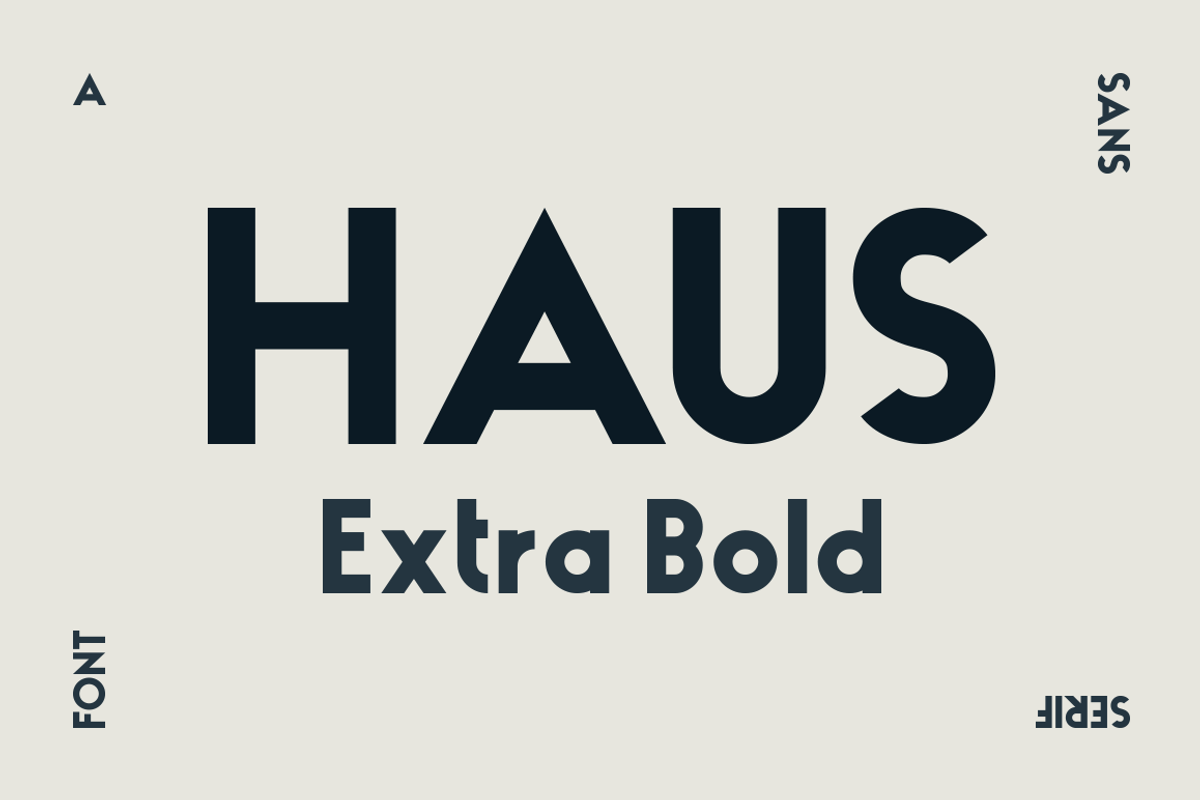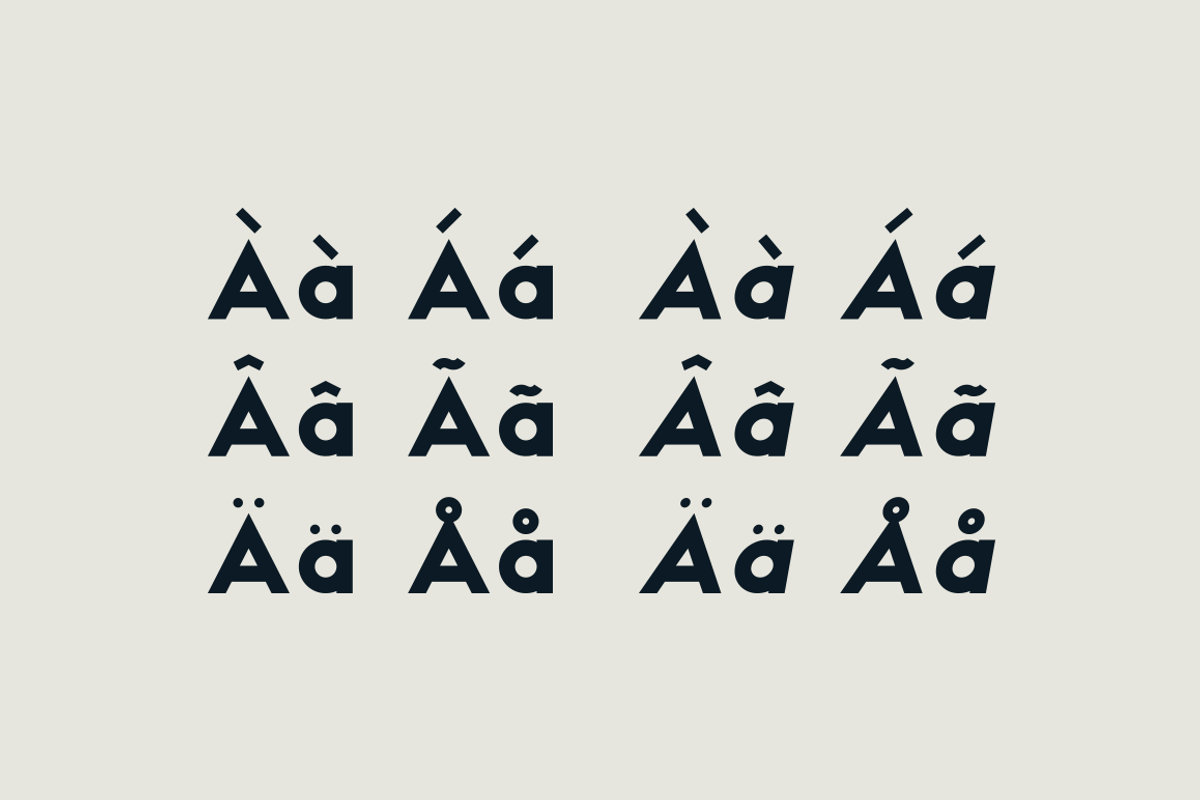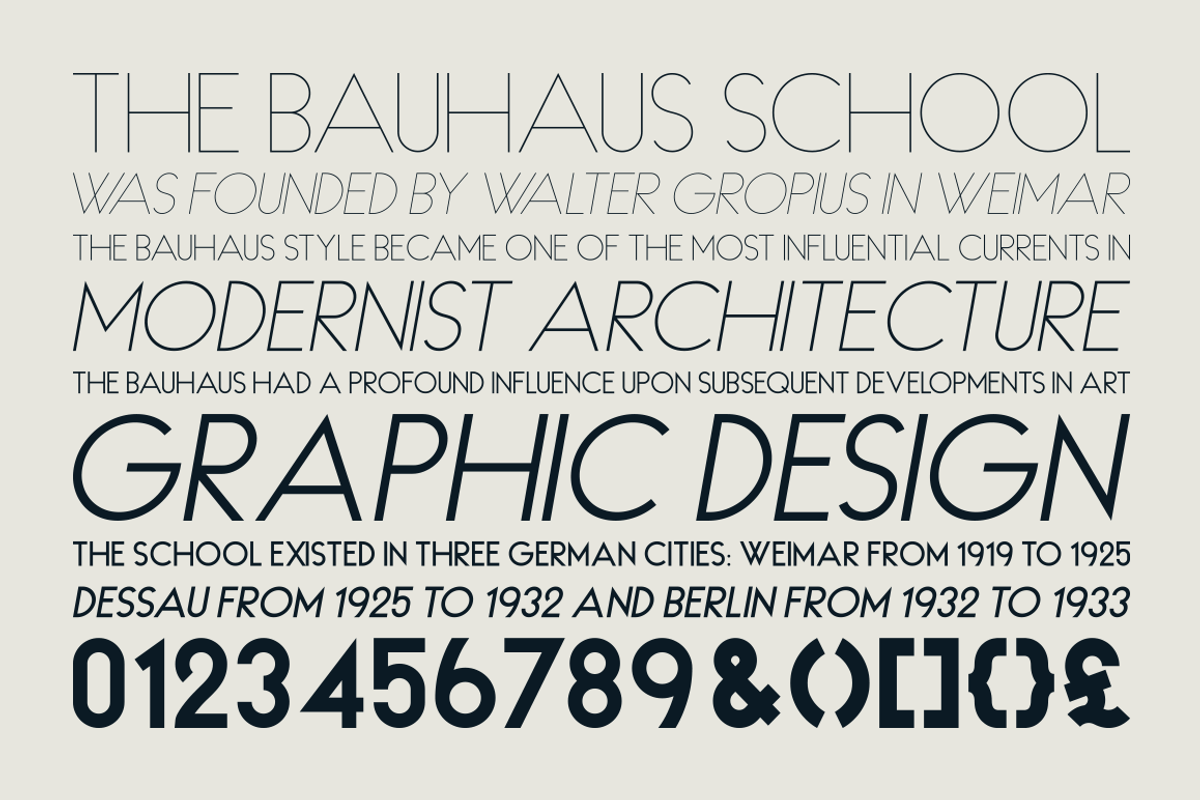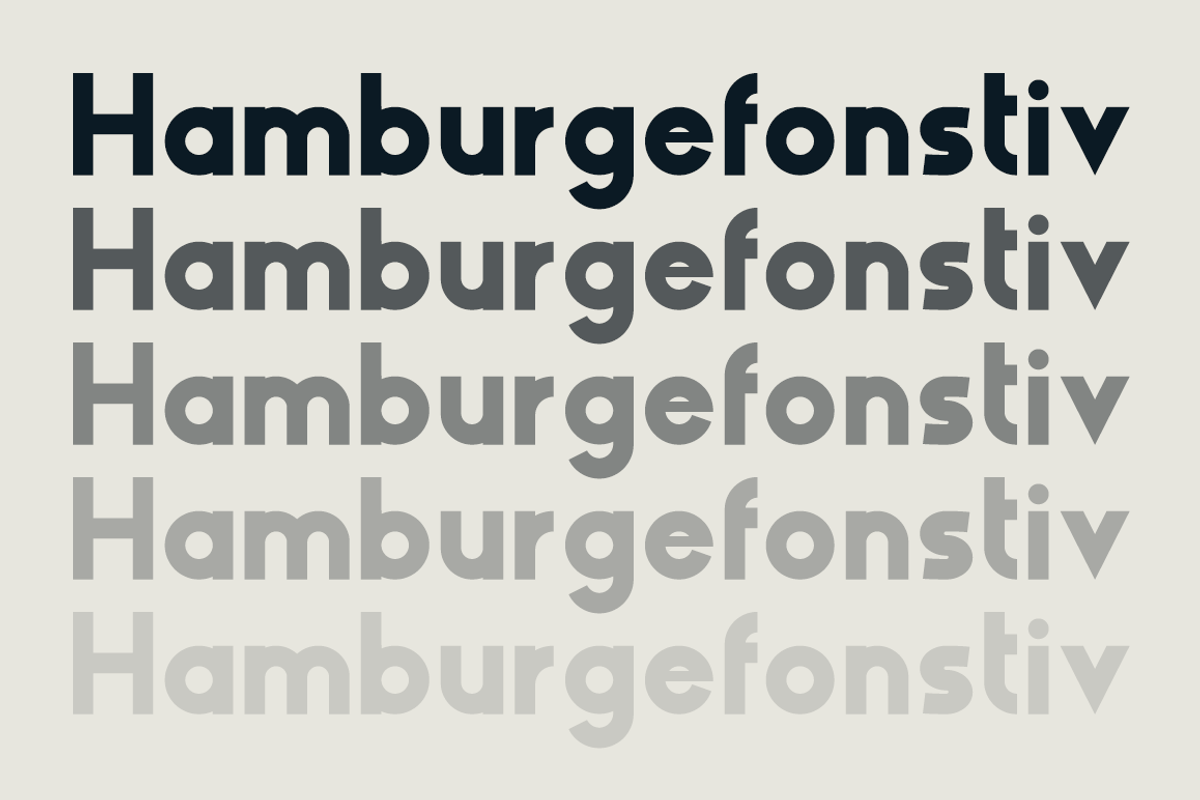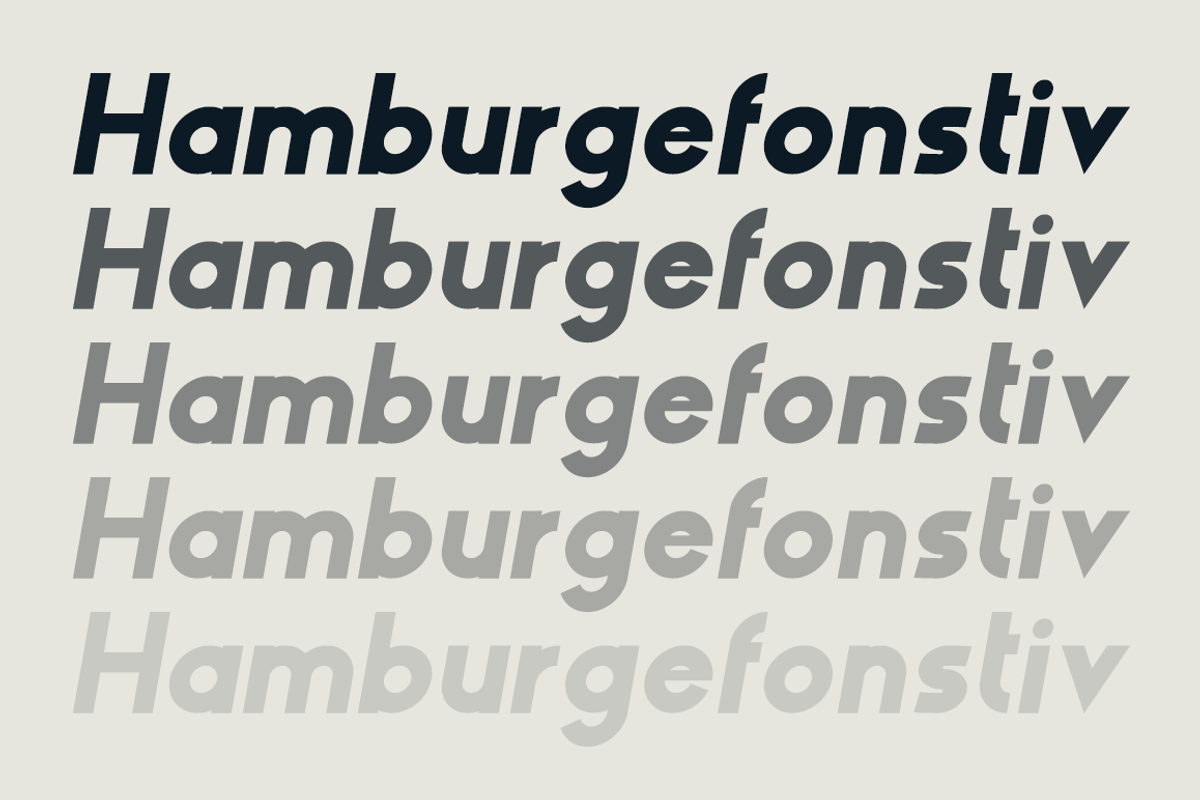
HAUS Sans Extra Bold
HAUS Sans is my first sans-serif experiment, inspired by Bauhaus and historical grotesk typefaces of the 1930s. Available in 6 weights, from "Ultra Light" to "Extra Bold" regular and italic versions.
The font includes 389 glyphs, with subscripts, superscripts, ligatures and support almost all latin alphabets:
ISO-8859-1 - Latin 1 Western Europe and Americas: Afrikaans, Basque, Catalan, Danish, Dutch, English, Faeroese, Finnish, French, Galician, German, Icelandic, Irish, Italian, Norwegian, Portuguese, Spanish and Swedish.
ISO-8859-2 Latin 2 Latin-written Slavic and Central European languages: Czech, German, Hungarian, Polish, Romanian, Croatian, Slovak, Slovene.
ISO-8859-3 - Latin 3 Esperanto, Galician, Maltese, and Turkish.
ISO-8859-4 - Latin 4 Scandinavia/Baltic (mostly covered by 8859-1 also): Estonian, Latvian, and Lithuanian. It is an incomplete predecessor of Latin 6.
ISO-8859-9 - Latin 5 Same as 8859-1 except for Turkish instead of Icelandic.
ISO-8859-10 - Latin 6 Lappish/Nordic/Eskimo languages: adds the last Inuit (Greenlandic) and Sami (Lappish) letters that were missing in Latin 4 to cover the entire Nordic area.